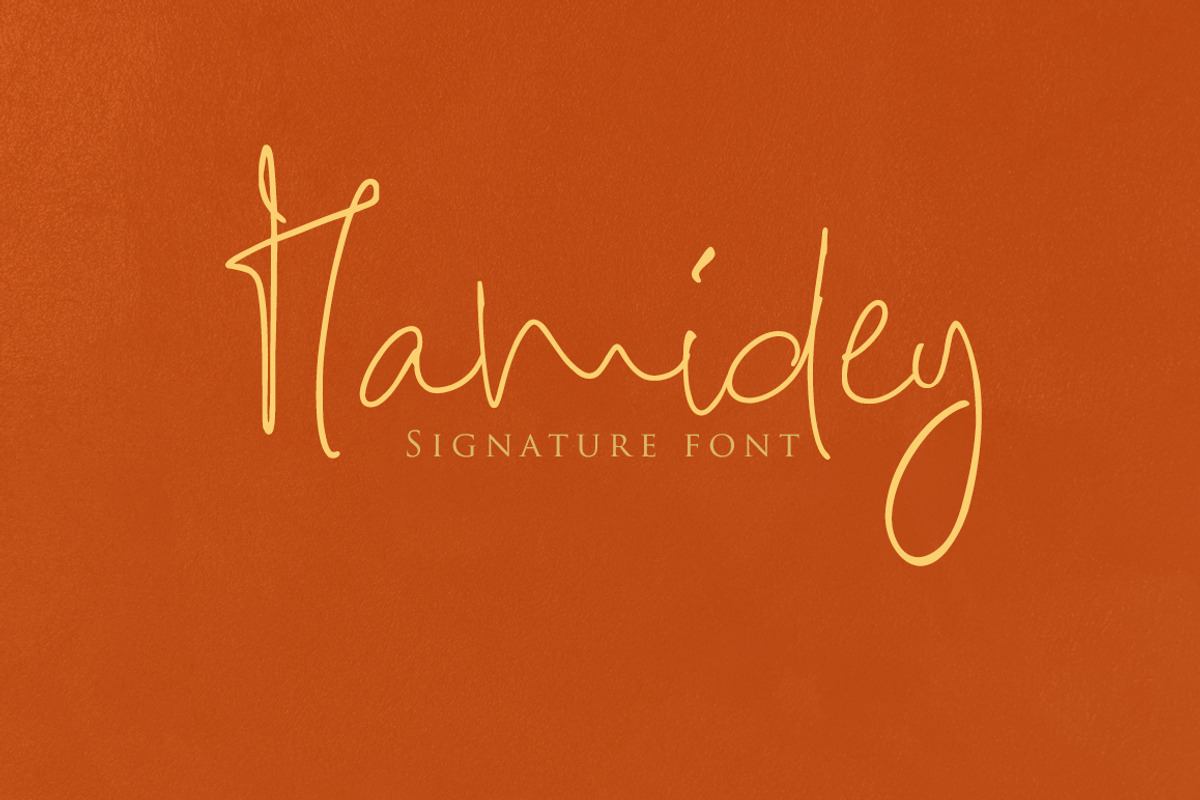
The Hamidey Signature Script Font Free Download is an elegant and stylish typeface that adds a personal touch to any design. With its flowing curves and sophisticated handwritten style, this font is perfect for creating logos, invitations, branding, and other projects that require a refined, signature-like look. Whether you're designing for a luxury brand, wedding event, or personal project, Hamidey brings a sense of grace and elegance to your work.
Hamidey Signature Script Font Free Download is ideal for designers looking to add a professional yet personal feel to their creations. Perfect for modern, upscale branding or creative event invitations, this font will bring a sophisticated, handwritten style to your designs. Download this stunning script font today and add an elegant touch to your creative projects!